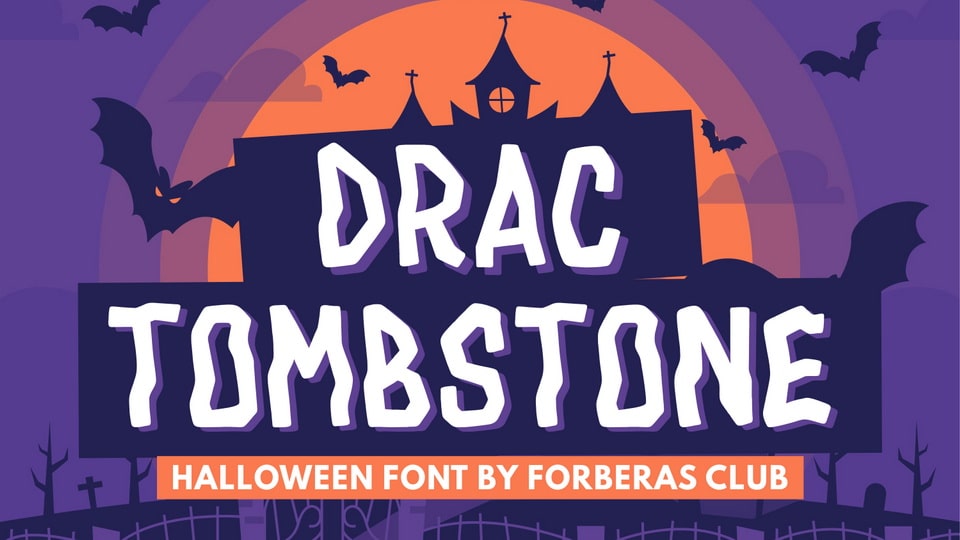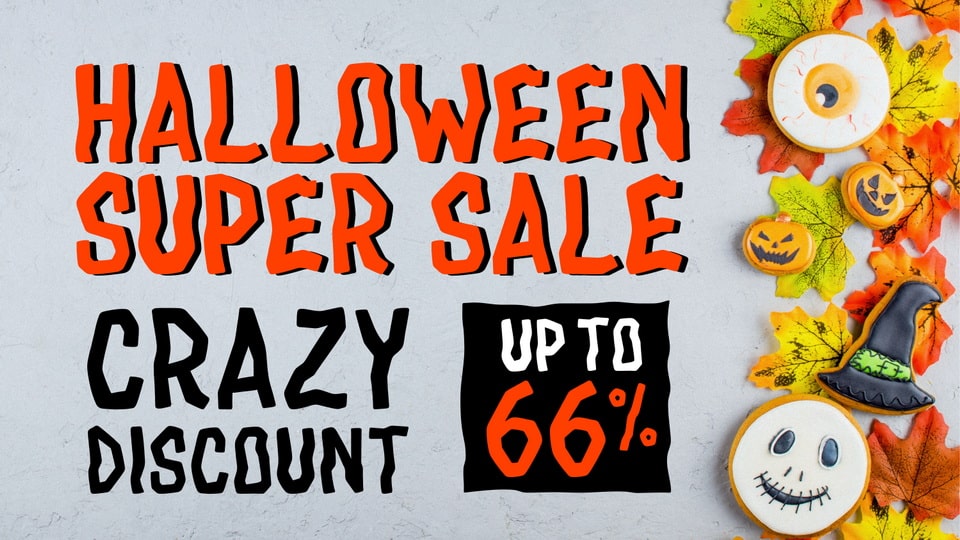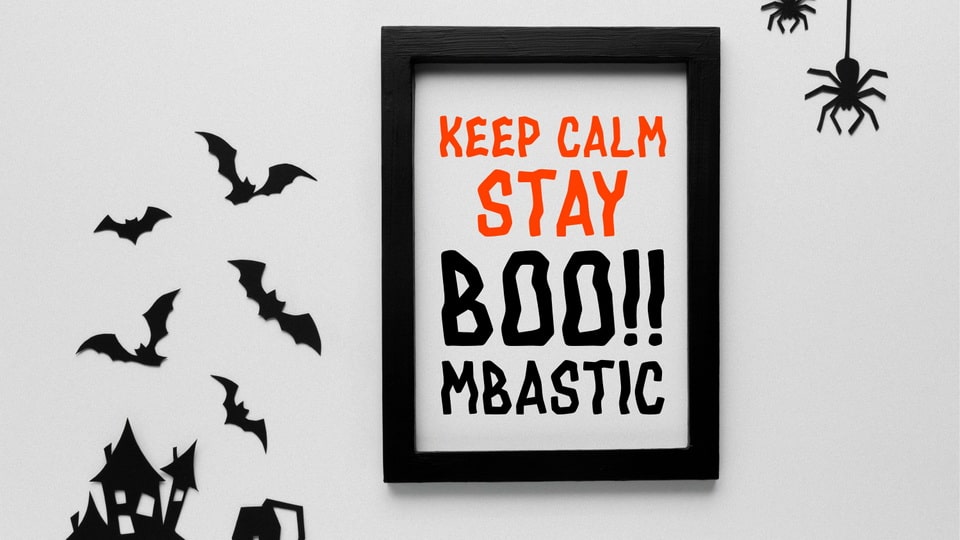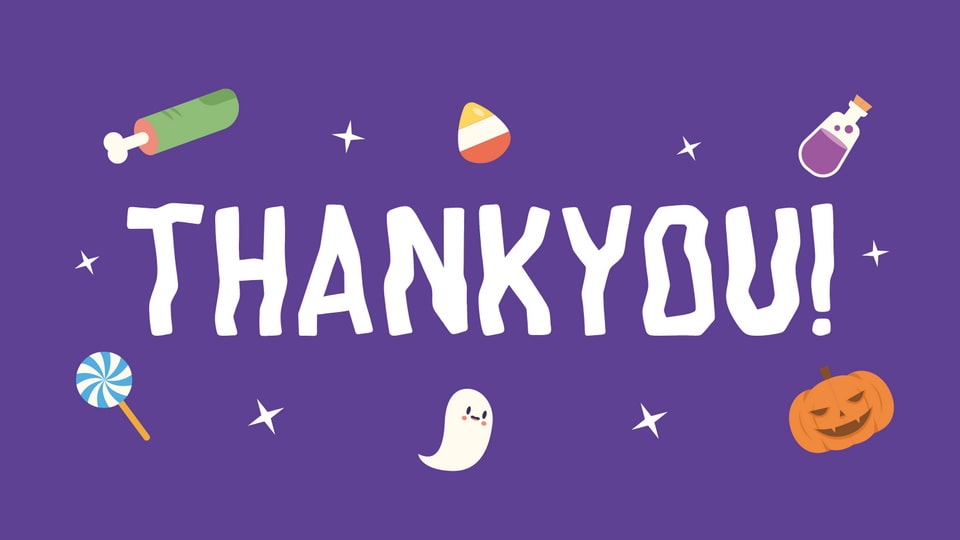
Drac Tombstone is a quirky display font inspired by Halloween. It is especially designed for cartoons, crafts, kids projects.
Drac Tombstone font is perfect for creating modern and chic designs such as logos, packaging, editorials and more.